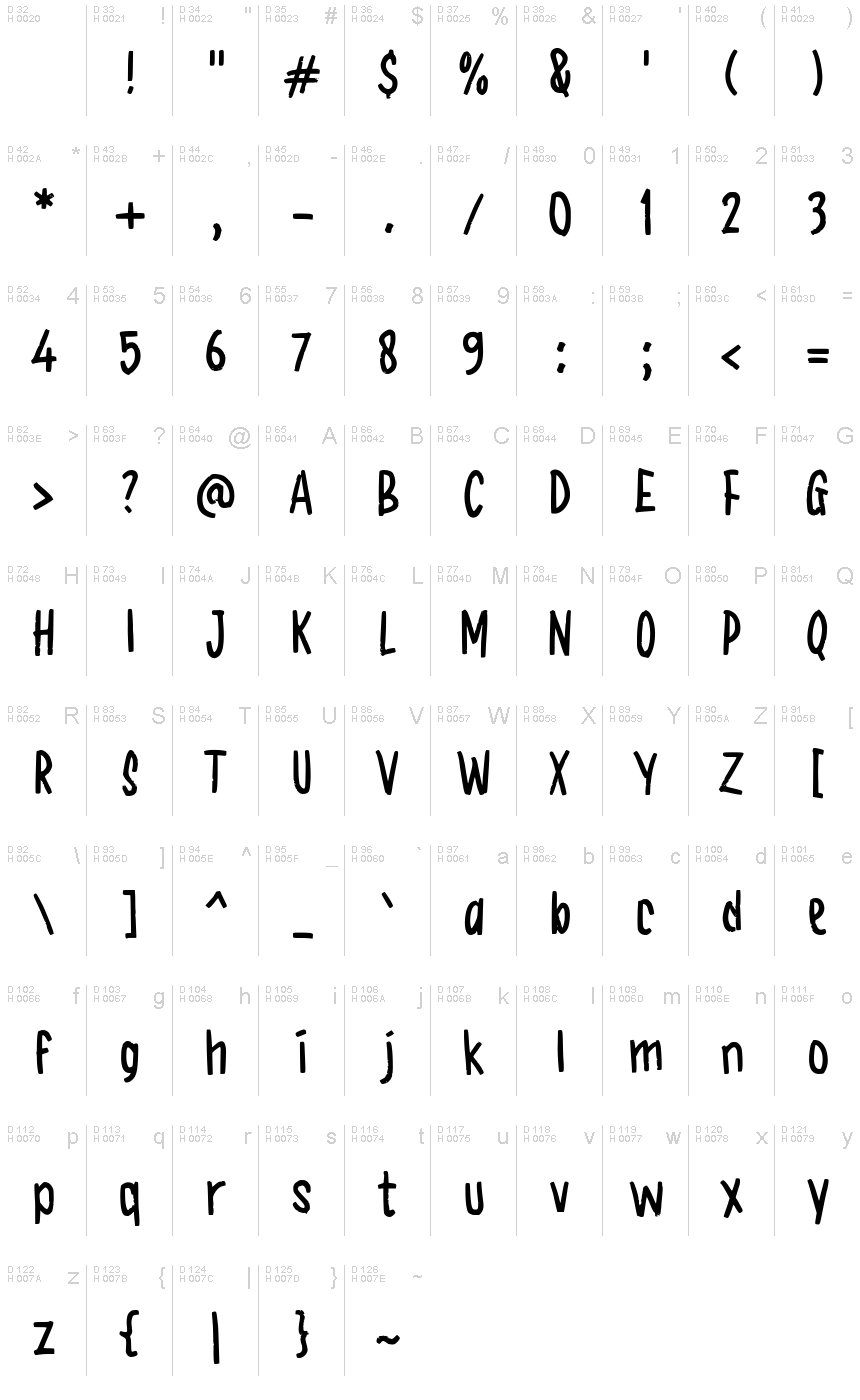
Gross Profit
Gross Profit is a captivating brush font designed by wep. This condensed typeface exudes a sense of artistry and organic movement, with each letter bearing the distinct imprint of the artist's hand. The bold, expressive strokes create an impactful visual rhythm, while the subtle variations in line weight and texture lend the font a dynamic, handcrafted quality.
The Gross Profit font's versatility shines through its ability to convey a range of moods, from bold and confident to playful and whimsical. Its condensed form makes it an ideal choice for eye-catching headlines, impactful branding, and dynamic typography-driven designs. Whether you're looking to add a touch of personality to your next project or create a striking visual statement, the Gross Profit font by wep is a compelling option to consider.